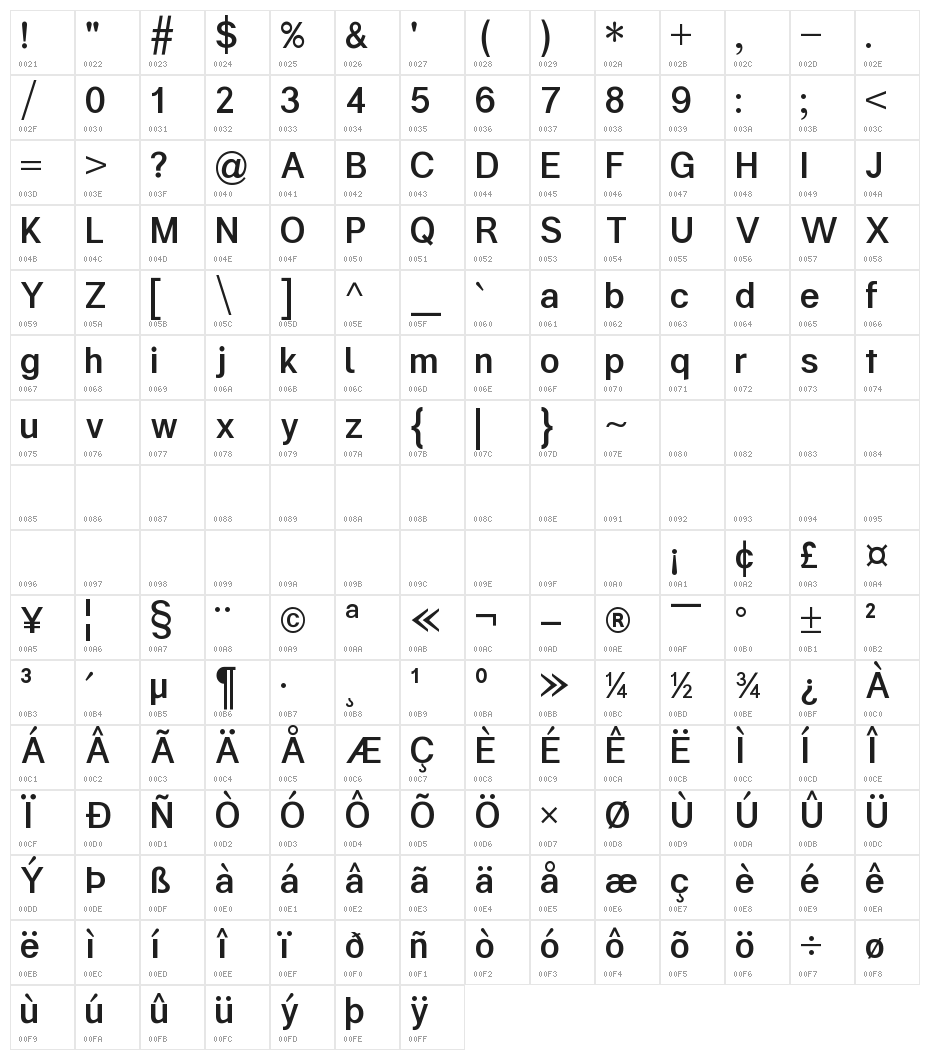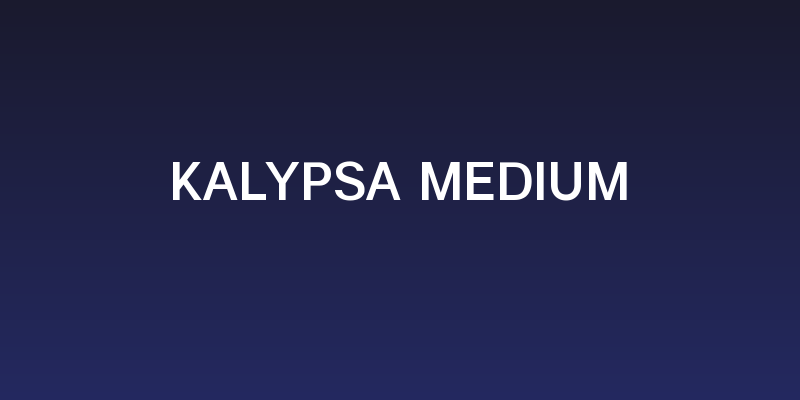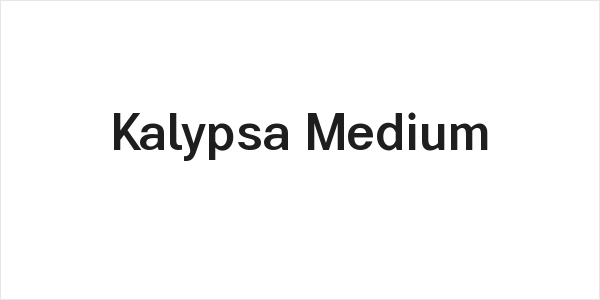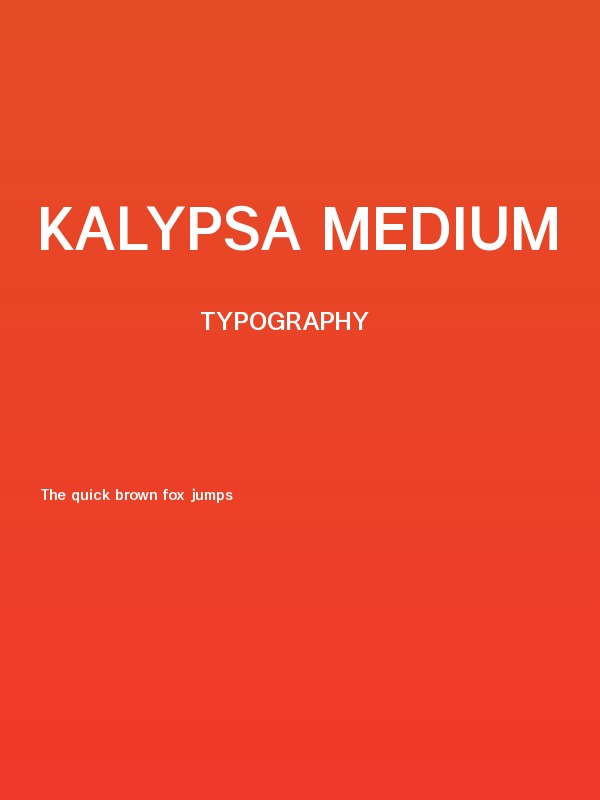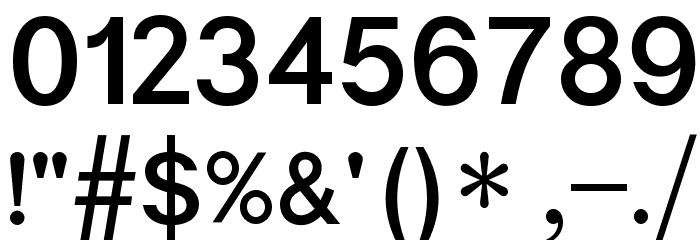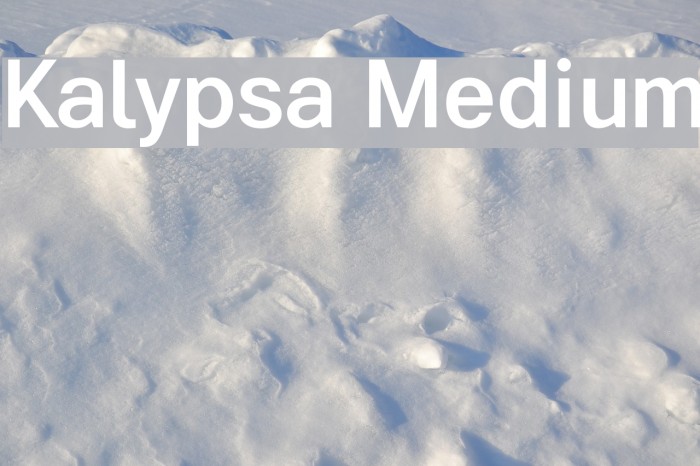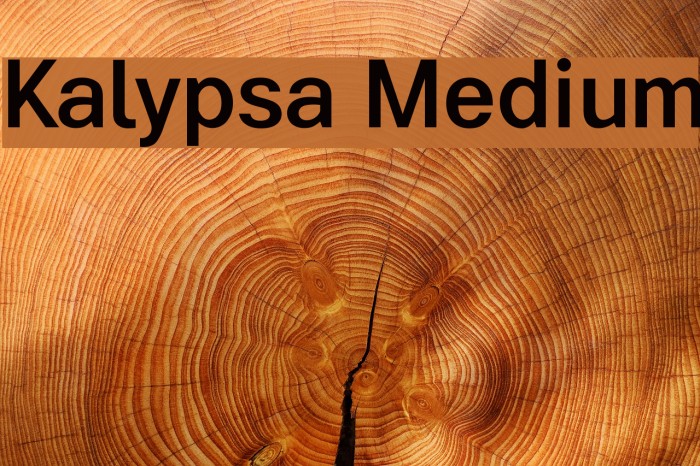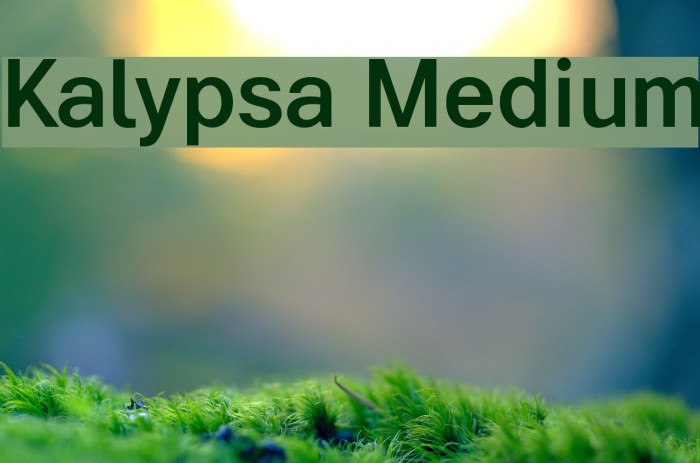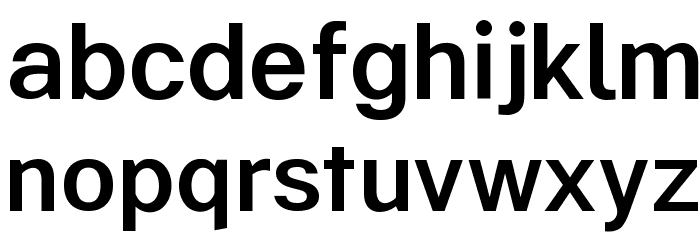
Kalypsa Medium Font
Kalypsa Medium Description
This font presents a clean and modern aesthetic with a sans-serif style. The characters are bold and evenly weighted, offering a strong presence on the page. The uppercase and lowercase letters are well-proportioned, maintaining a consistent height and width that enhances readability. The numerals are clear and distinct, making them suitable for various applications. Special characters are included, providing versatility for different contexts. The overall design is straightforward, with no unnecessary embellishments, making it ideal for professional and contemporary uses.
| Proposed Projects | Ideal for corporate branding, digital interfaces, advertising materials, and editorial design. |